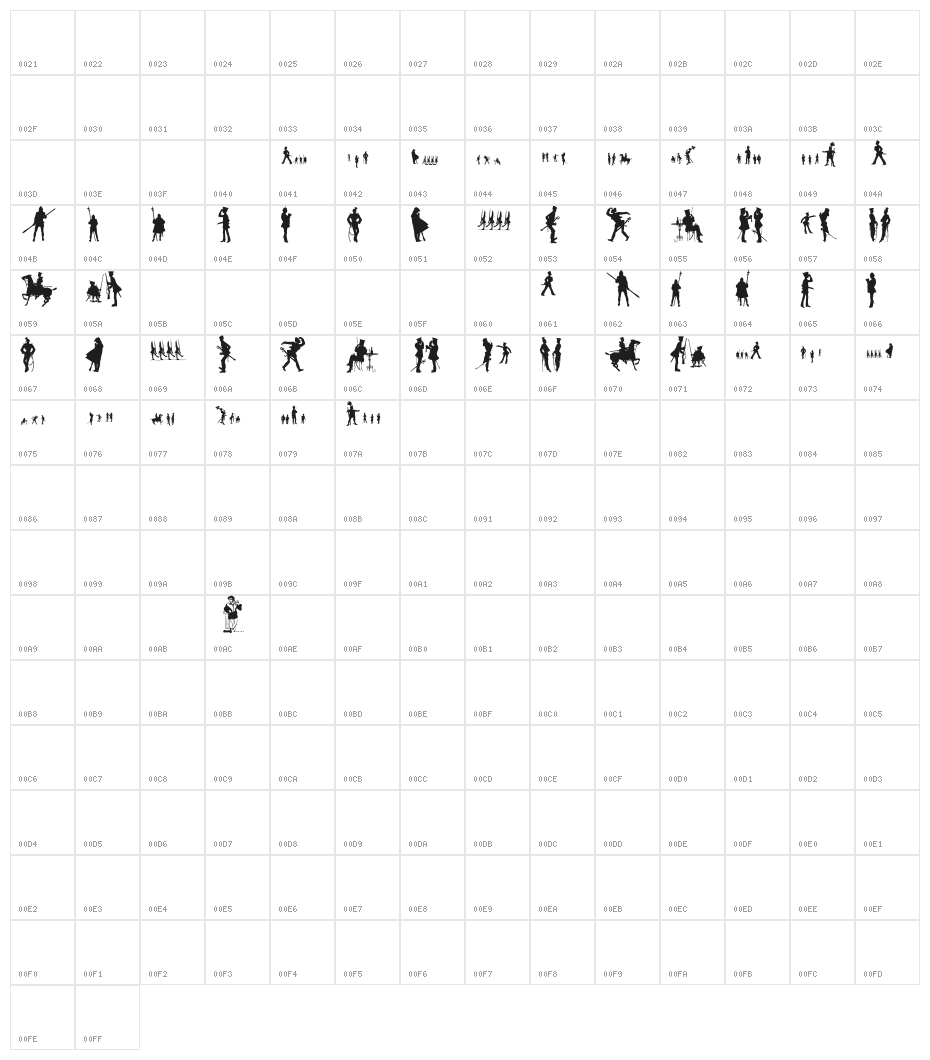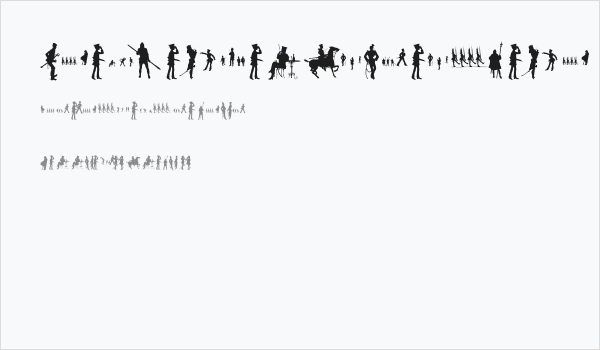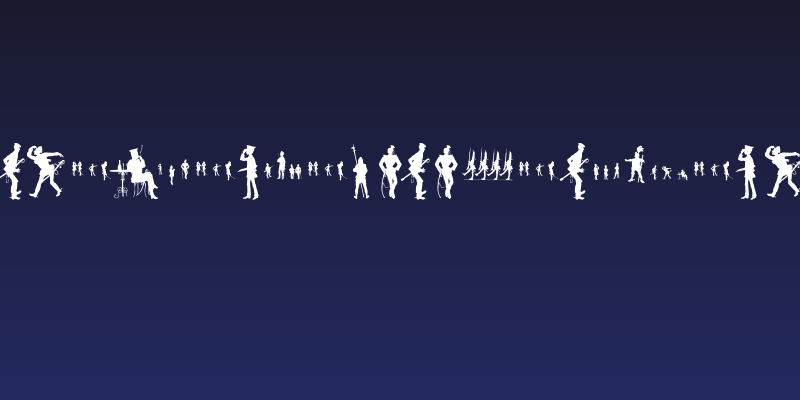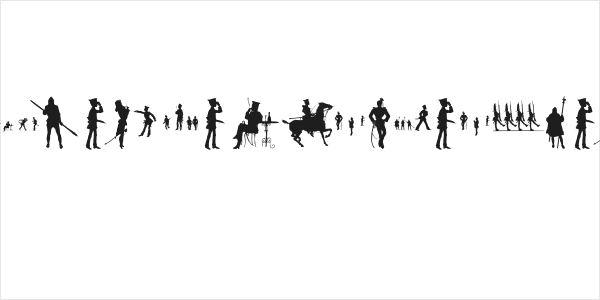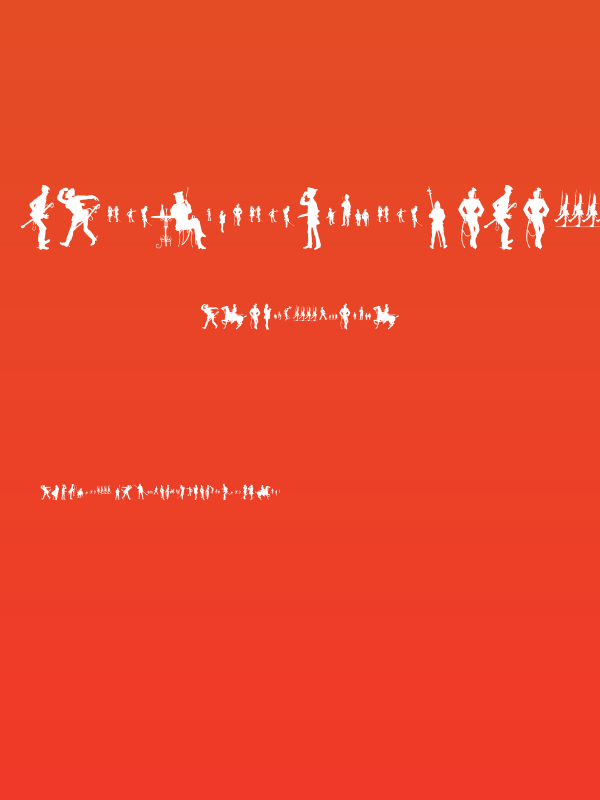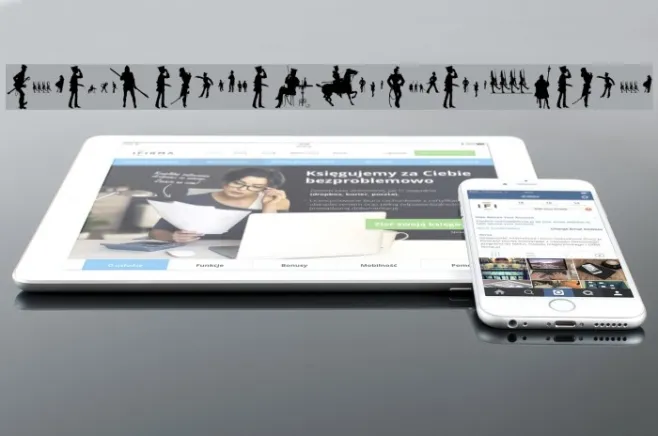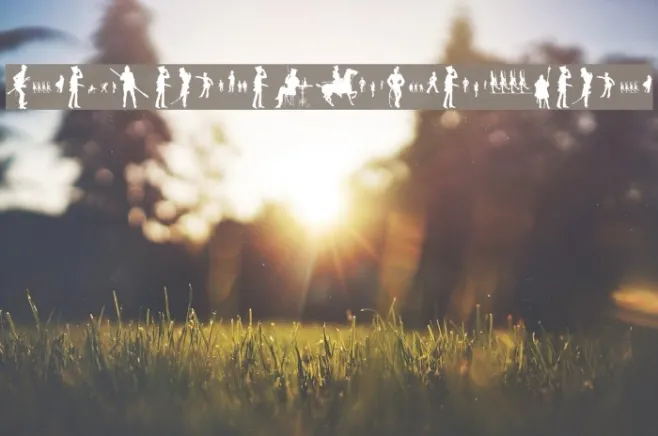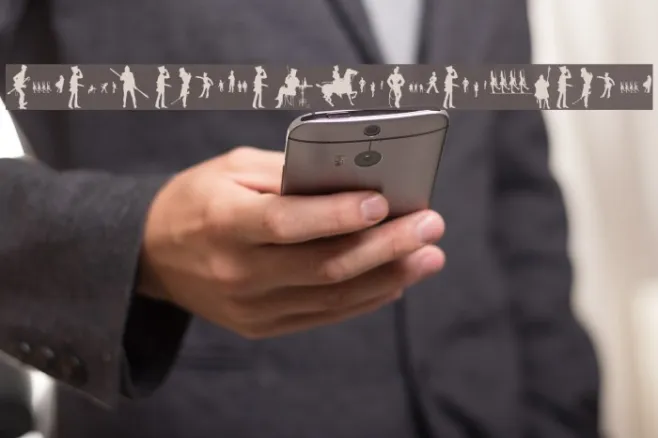
SteubenHelpsPresident Font
SteubenHelpsPresident Description
A decorative font composed of detailed black silhouette illustrations depicting historical military and civilian figures in various poses, creating each character with unique scene-like imagery rather than traditional letterforms.
| Overall Style | Decorative, Historical |
| Use Case | Headlines, Logos, Thematic graphics |
| Proposed Projects | Posters, educational materials, themed event invitations, book covers, historical displays. |